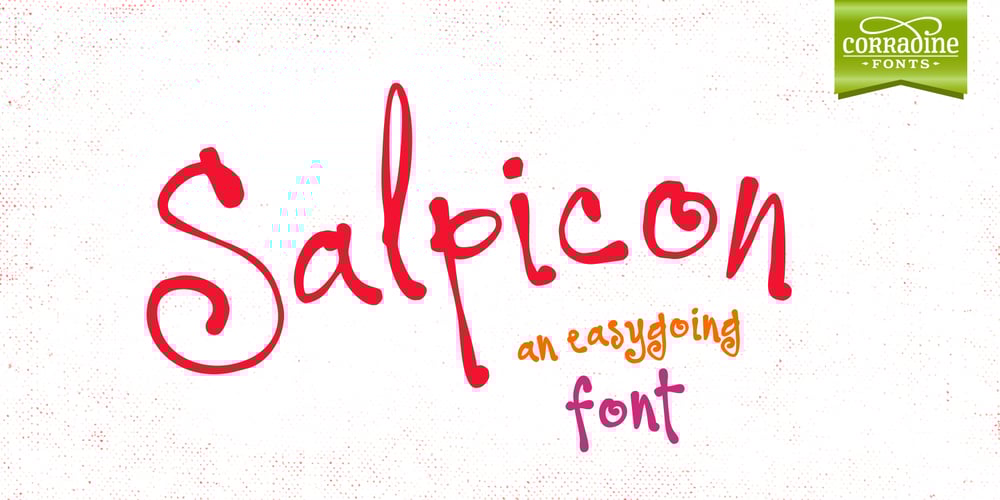
Salpicon
Salpicon font
Salpicon Font Family was designed by Manuel Eduardo Corradine and published by Corradine Fonts. Salpicon contains 4 styles and family package options. Based in Manuel Corradine’s handwriting, Salpicon is a very spontaneous font. It could be used in any informal project.